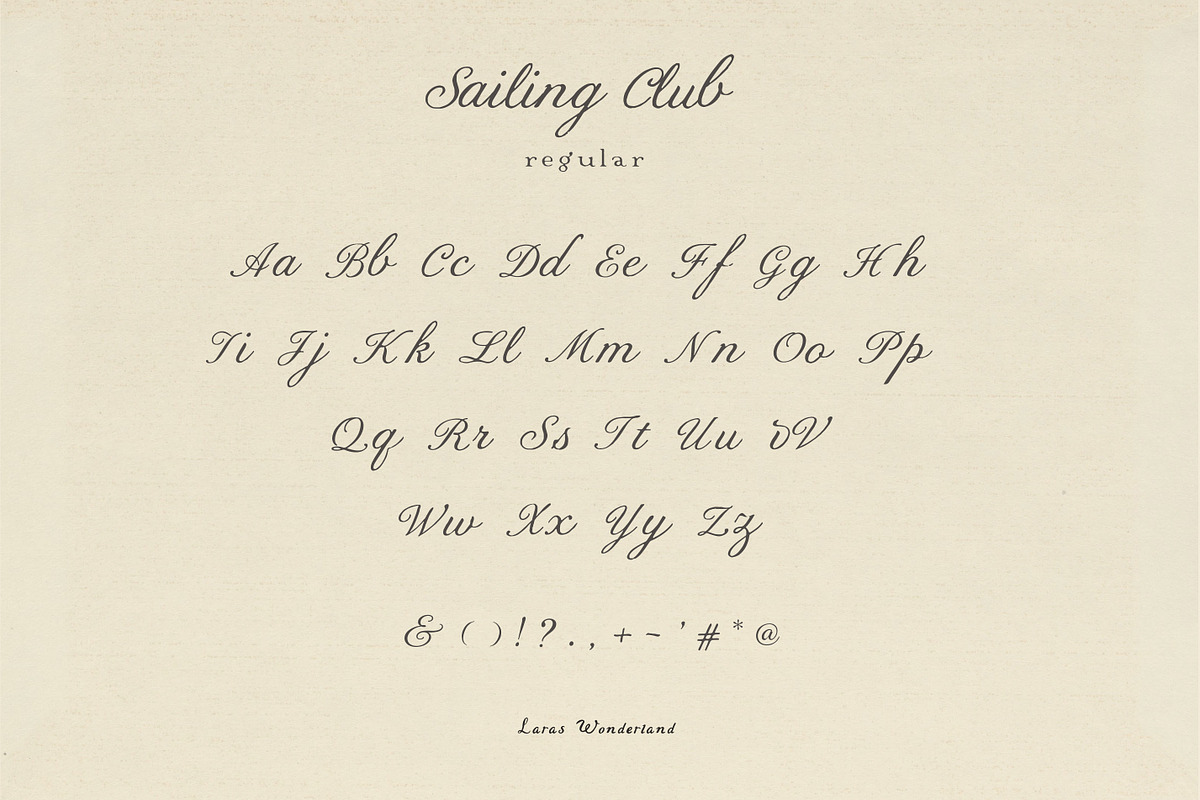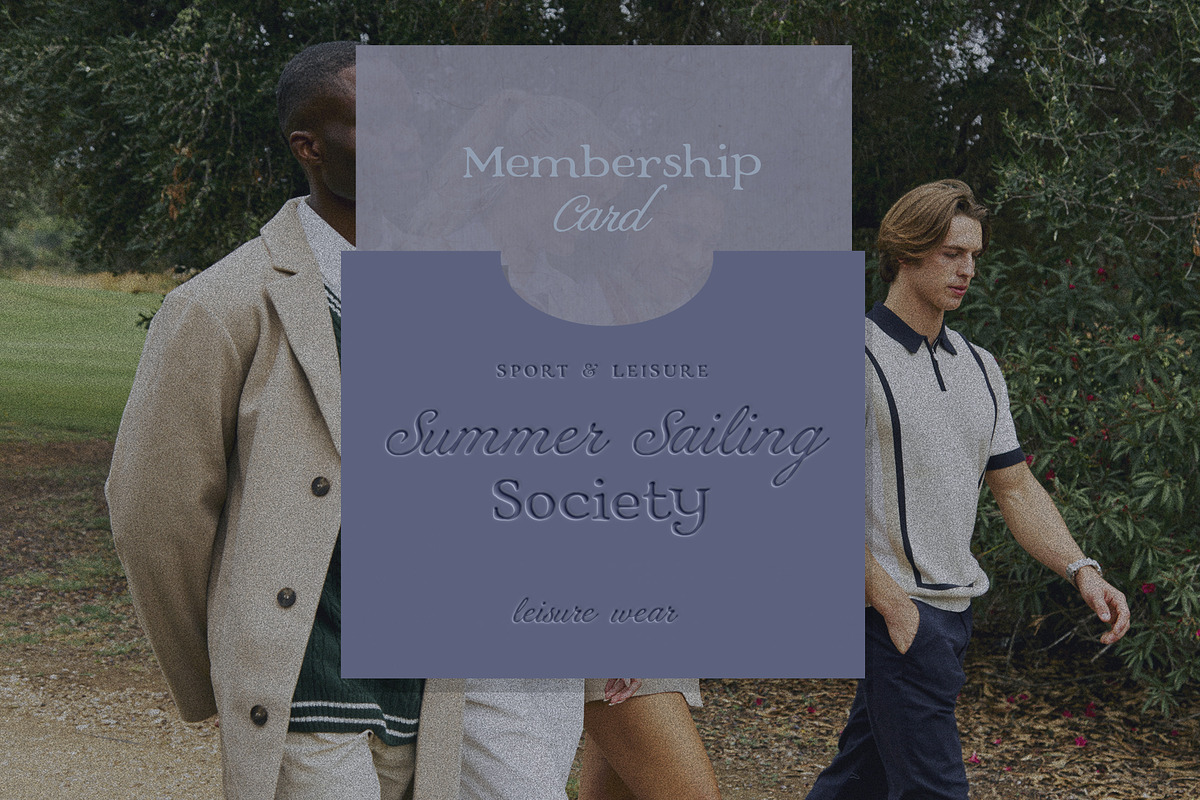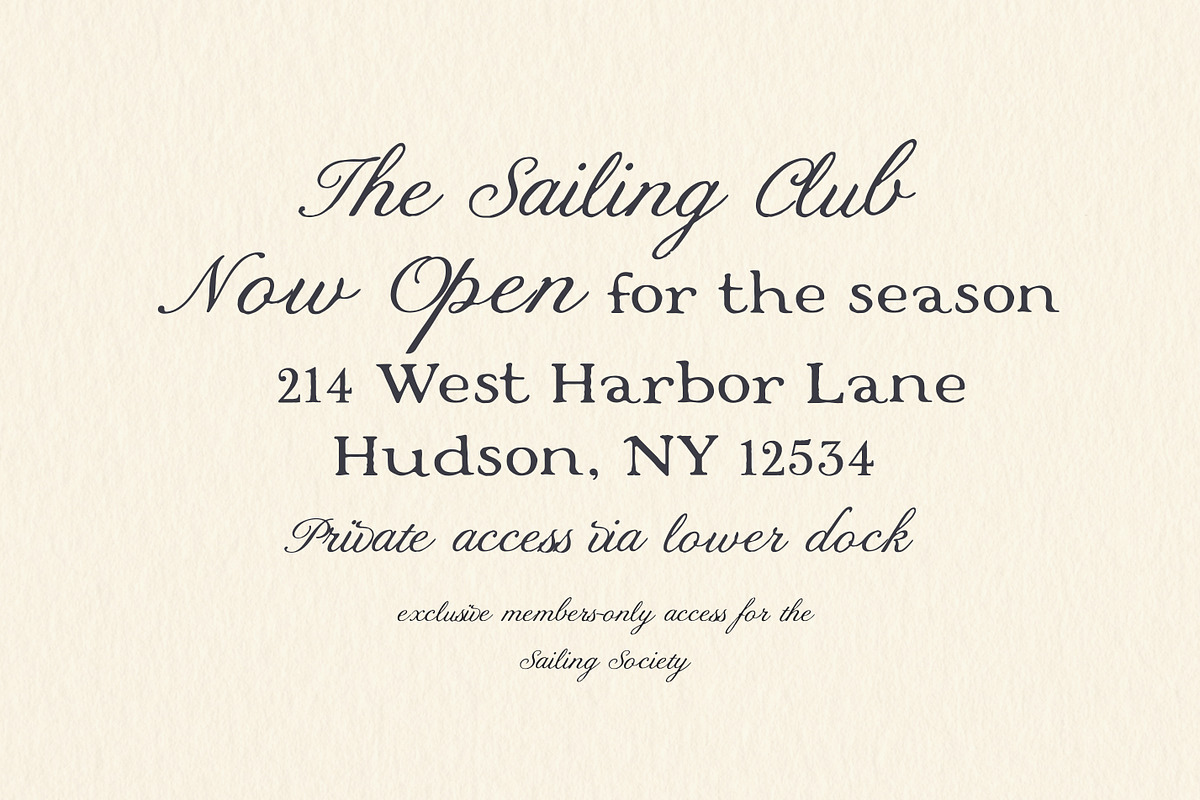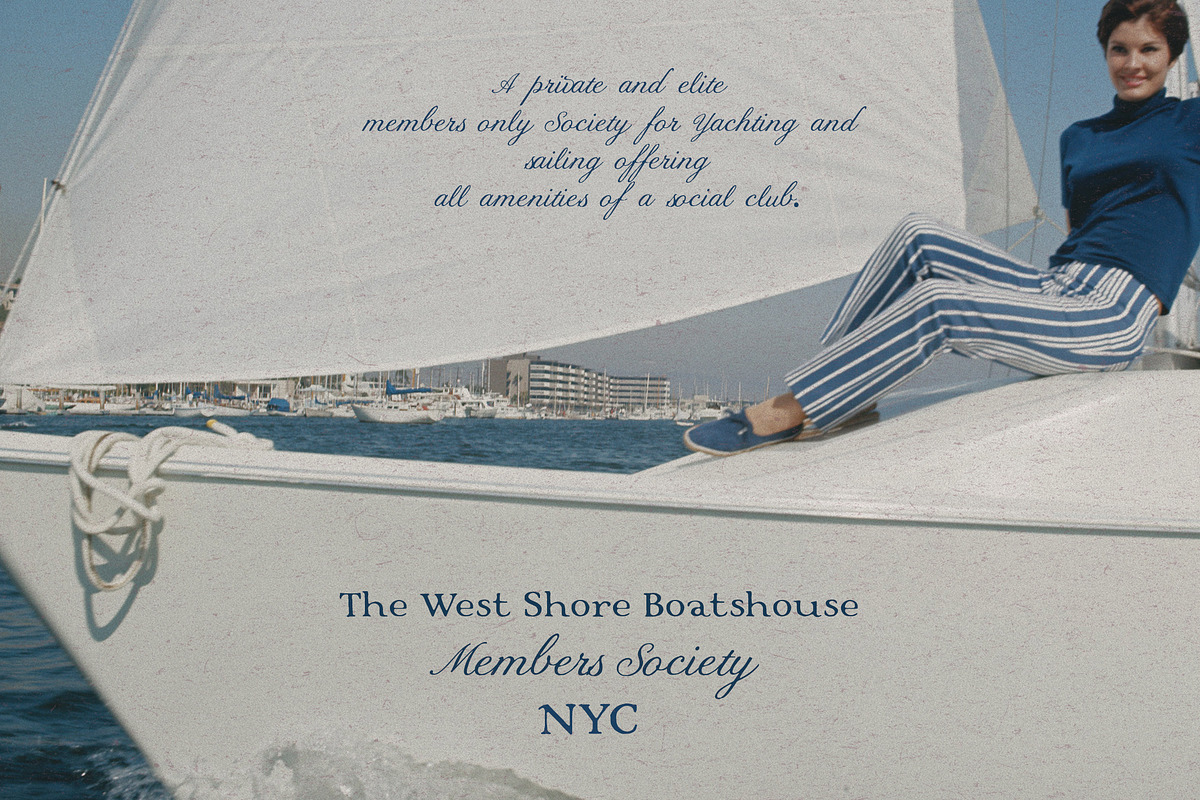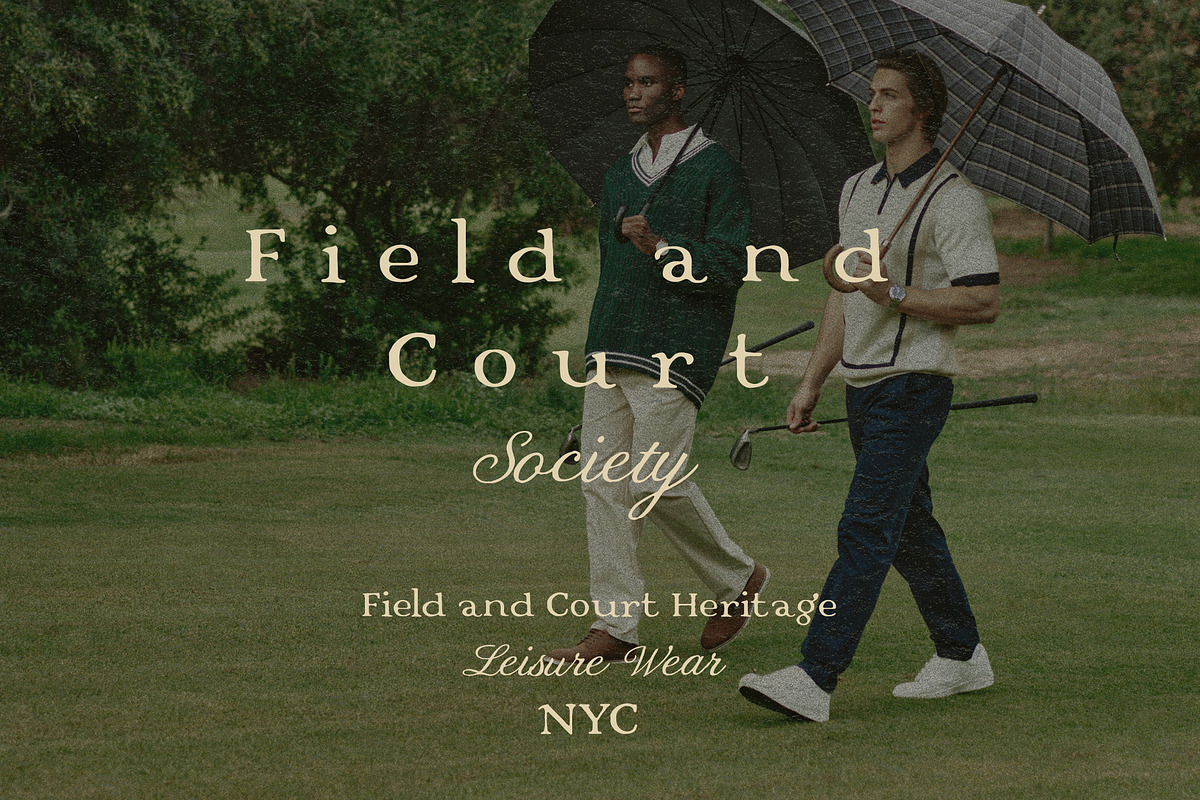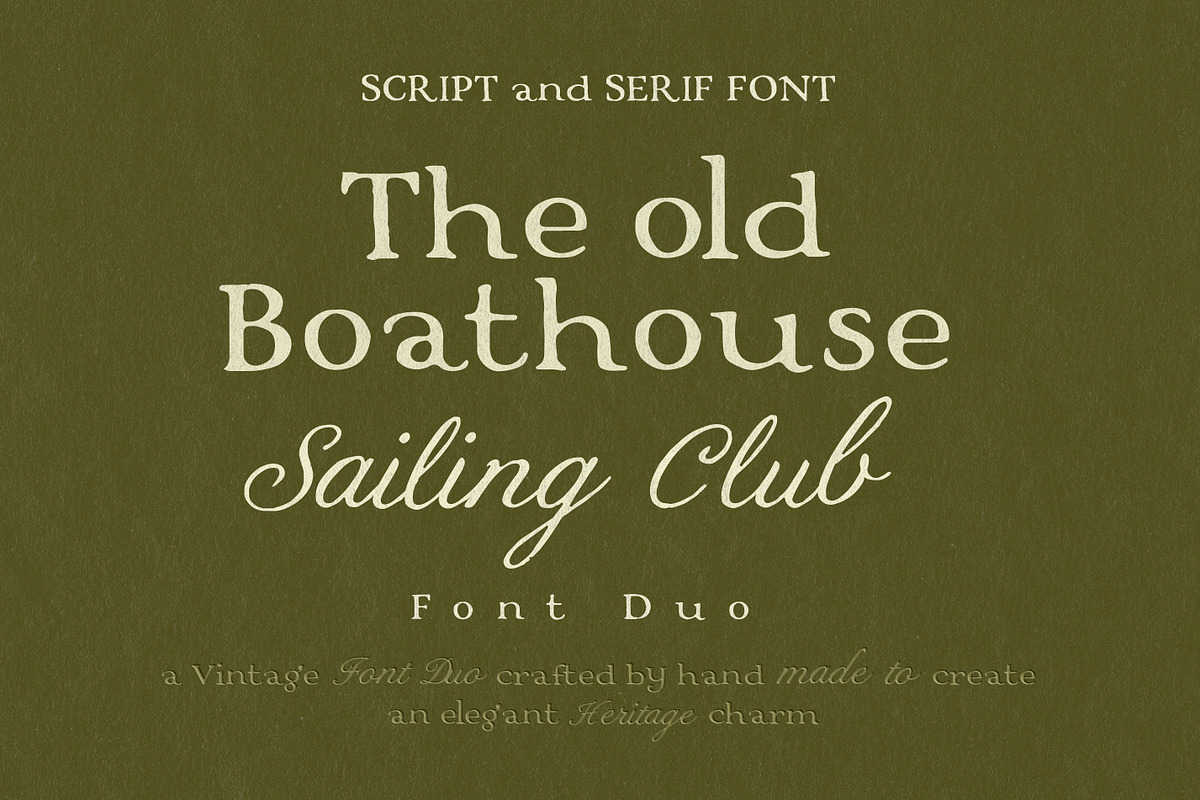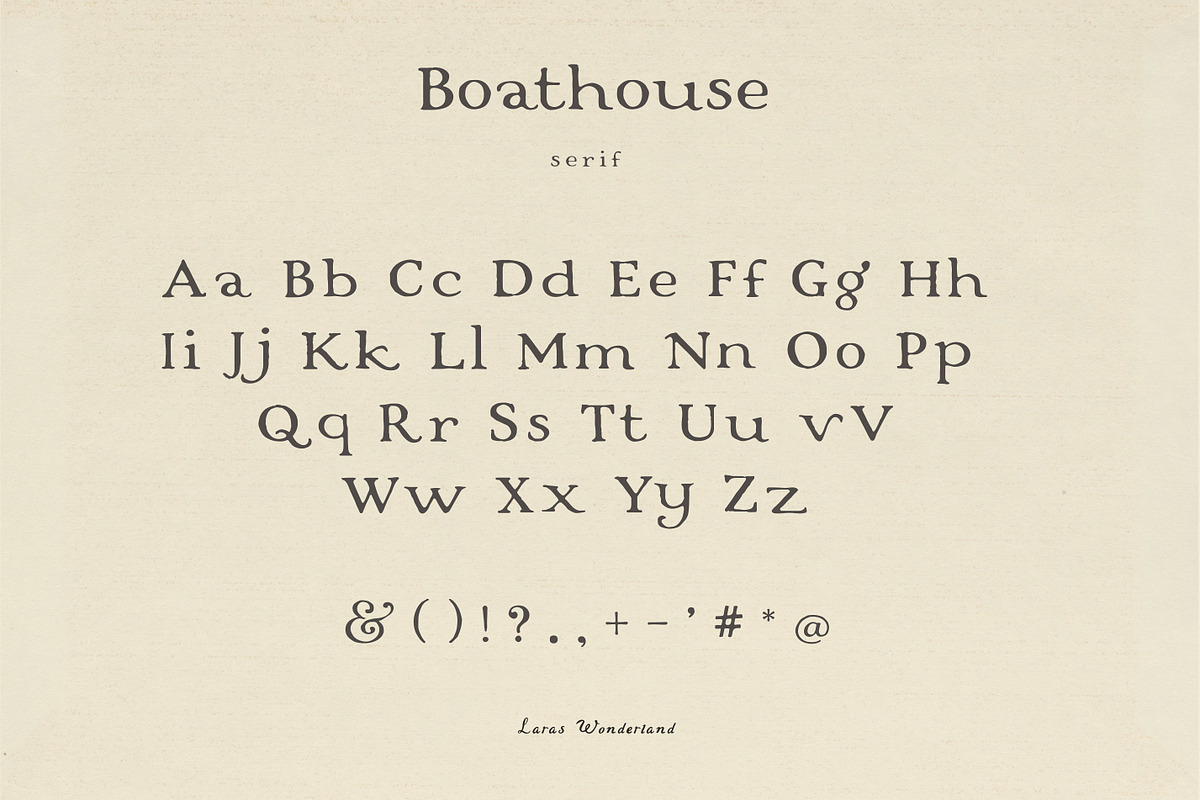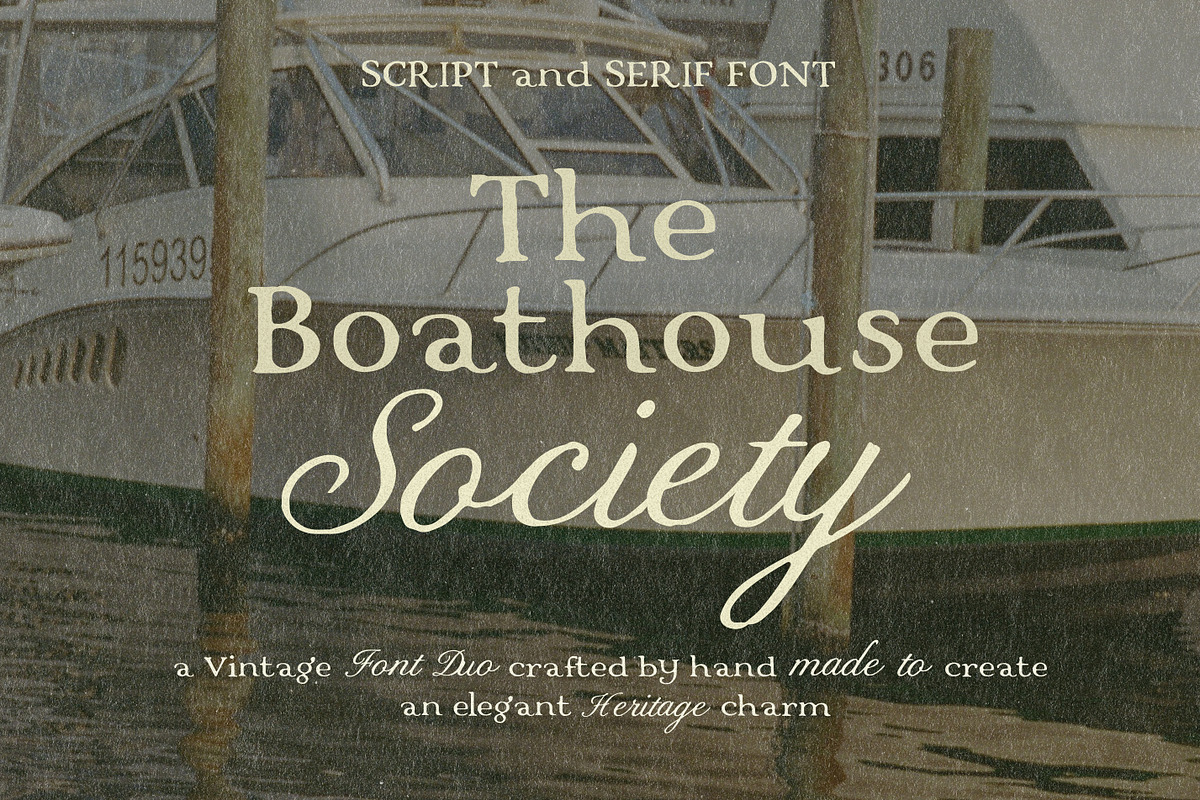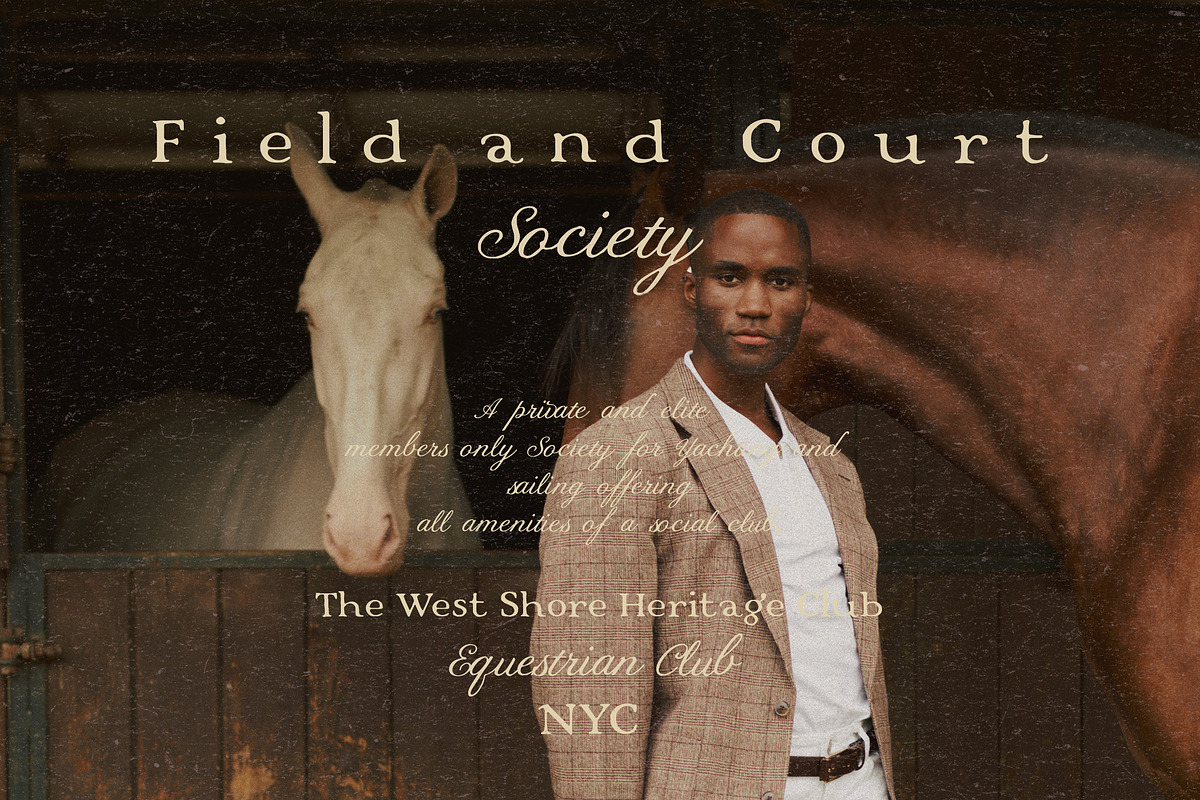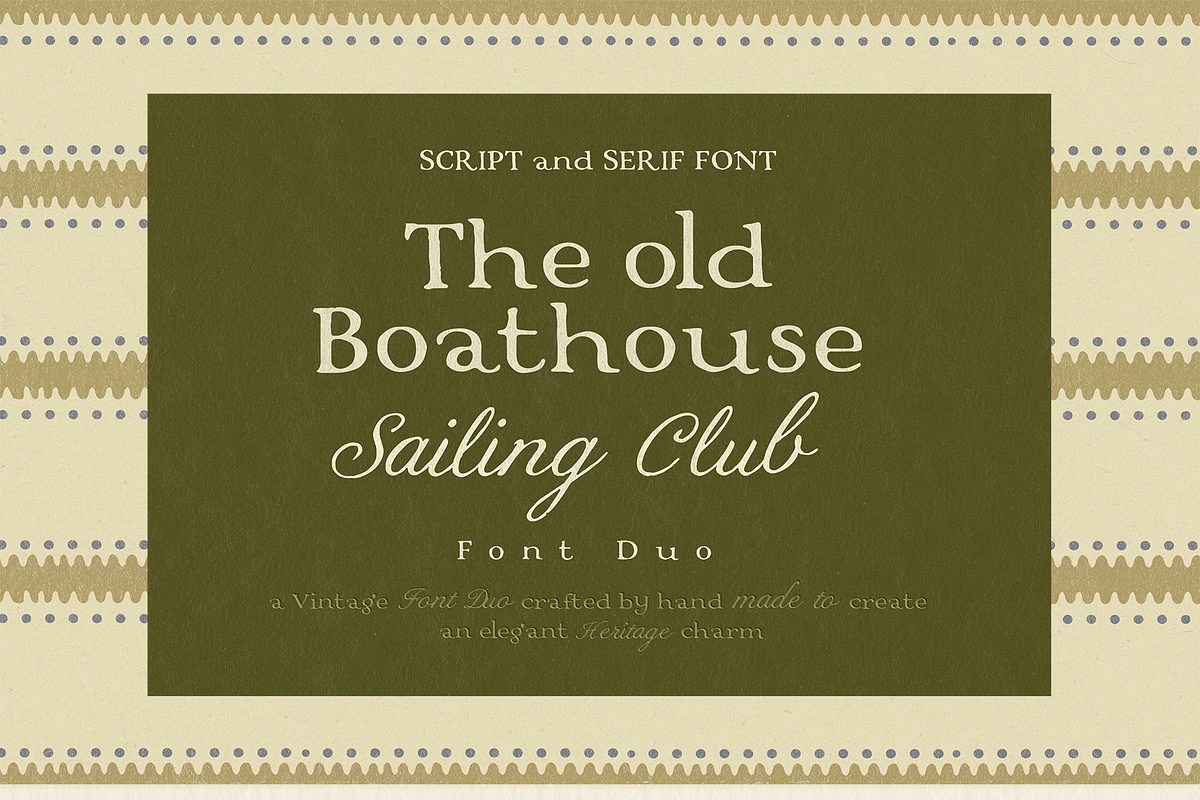
Vintage Serif & Calligraphy Script
The Boathouse & Sailing Club is an elevated font duo, handcrafted with attention to detail and infused with coastal heritage charm. Handcrafted with attention to detail, this charming duo captures the elegance of nautical tradition embedded in a quiet luxury concept.
Slightly softened edges and balanced proportions create a look that feels both established and quietly refined. It’s the kind of type you’d expect on aged membership cards, embossed stationery, vintage designs, sport and leisure branding or elegant wedding invitations.
Perfect for elevated branding, packaging, editorial design, wedding stationery, and coastal-inspired visuals that lean toward heritage rather than theme. Whether used for refined layouts or more expressive combinations, this duo offers a distinct balance of clarity and character.